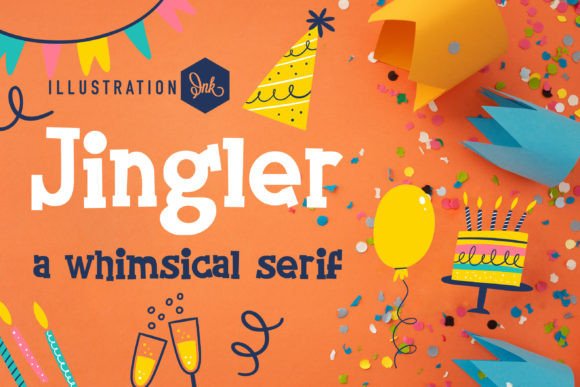
Introducing Jingler Font - the perfect choice for anyone seeking the best font for book title serif. Created by Illustration Ink, this whimsical and modern serif font is the ideal balance of charm and sophistication.
What sets Jingler Font apart from other serif fonts is its graceful strokes and rounded edges, which give it a soft and approachable feel. It's the perfect font for book titles, providing a touch of elegance and whimsy to any cover.
But don't let its whimsical nature fool you - Jingler Font's modern design ensures that it remains fresh and contemporary, making it the perfect choice for any project. Whether you're designing a book cover or creating marketing materials for your business, Jingler Font is sure to make a lasting impression.
With its eye-catching style, Jingler Font is the perfect choice for anyone looking to elevate their designs and capture their audience's attention. Its captivating design is guaranteed to leave a lasting impression on anyone who sees it.